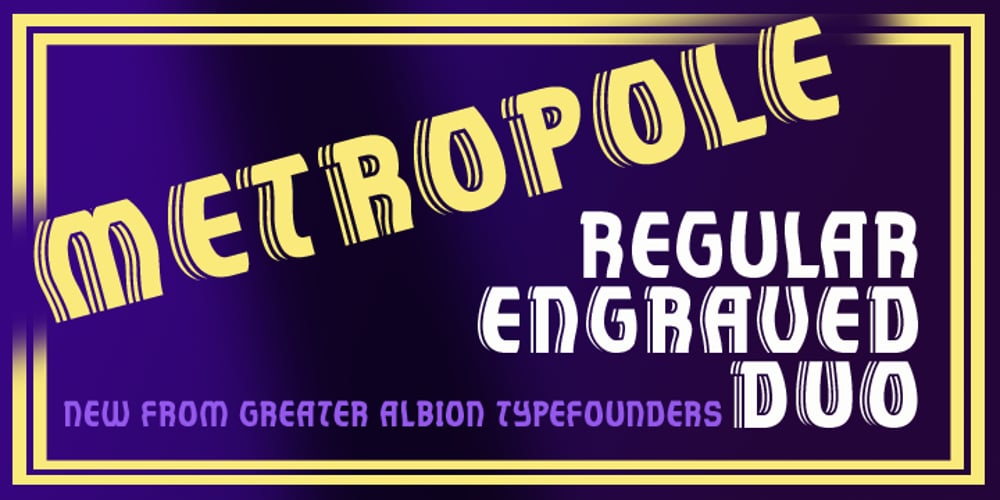
Metropole Font Family was designed by Paul James Lloyd and published by Greater Albion Typefounders. Metropole contains 3 styles and family package options. Metropole is an exercise in combing the curvaceous lines of the Art Nouveau with the solid character and simplicity of Art Deco. The resulting three display faces combine the spirit of the 20s and of the thirties, creating lively fun display faces for headings, signage and banners. These characterful faces with clear simple outlines are also ideal to lend a distinctive air to your web pages, or to create a distinctive ‘house-style’ for lettering.